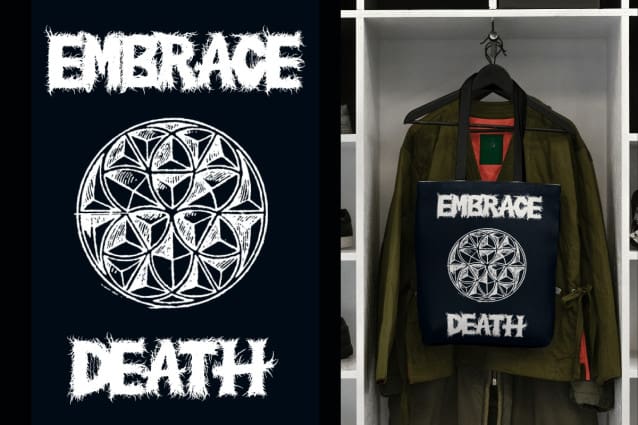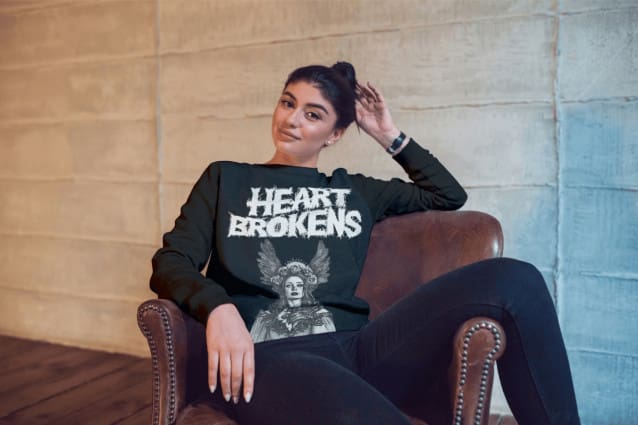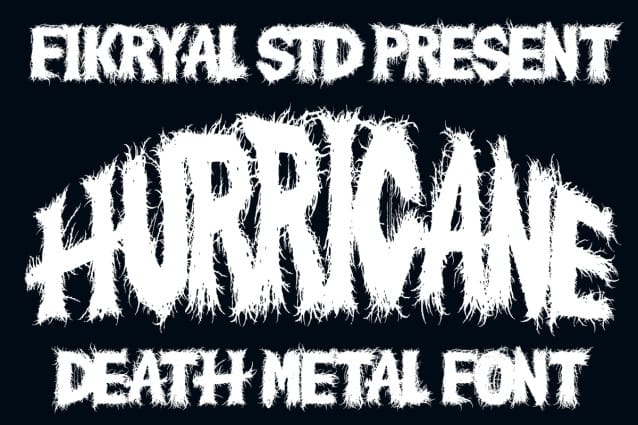
Hurricane Death Metal Font
Hurricane Death Metal Font is the perfect choice for those of you who want to add a touch of darkness and intensity to your designs. With a sharp, bold style, this font exudes a wild energy that’s perfect for death metal bands, concert posters, merchandise, and horror or gothic-themed graphic designs. Each letter is designed with intricate detail, creating an electrifying and eerie aesthetic that is ideal for grabbing attention and making a powerful visual statement. Hurricane Death Metal is not only a font but also a means of expression.